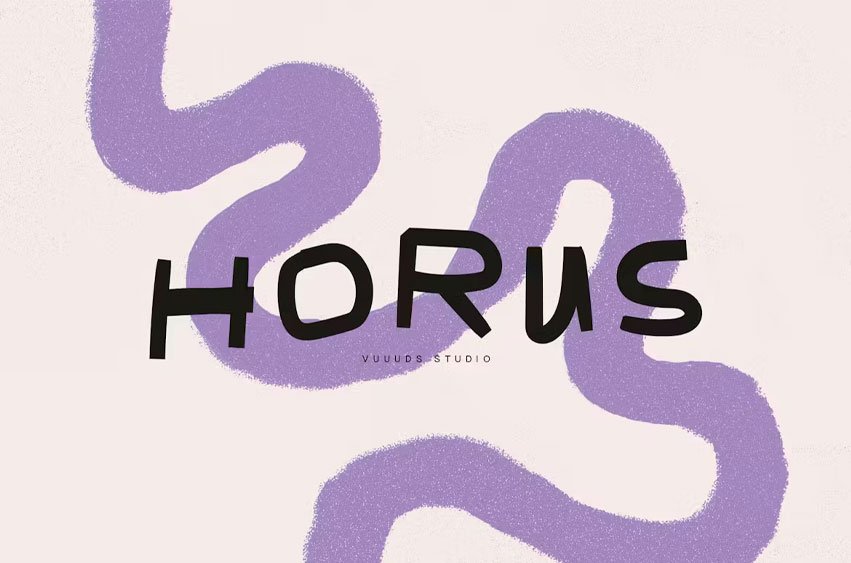
Horus Script Font is casual handwritten font, every single letters have been uniquely crafted.
Foreign languages support: ÀÁÂÃÄÅÆÇÈÉÊËÌÍÎÏÐÑÒÓÔÕÖØÙÚÛÜÝàáâãäåæçèéêëìíîïðñòóôõöøùúûüýÿ